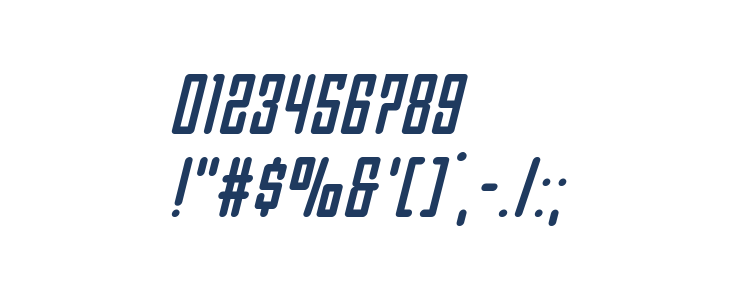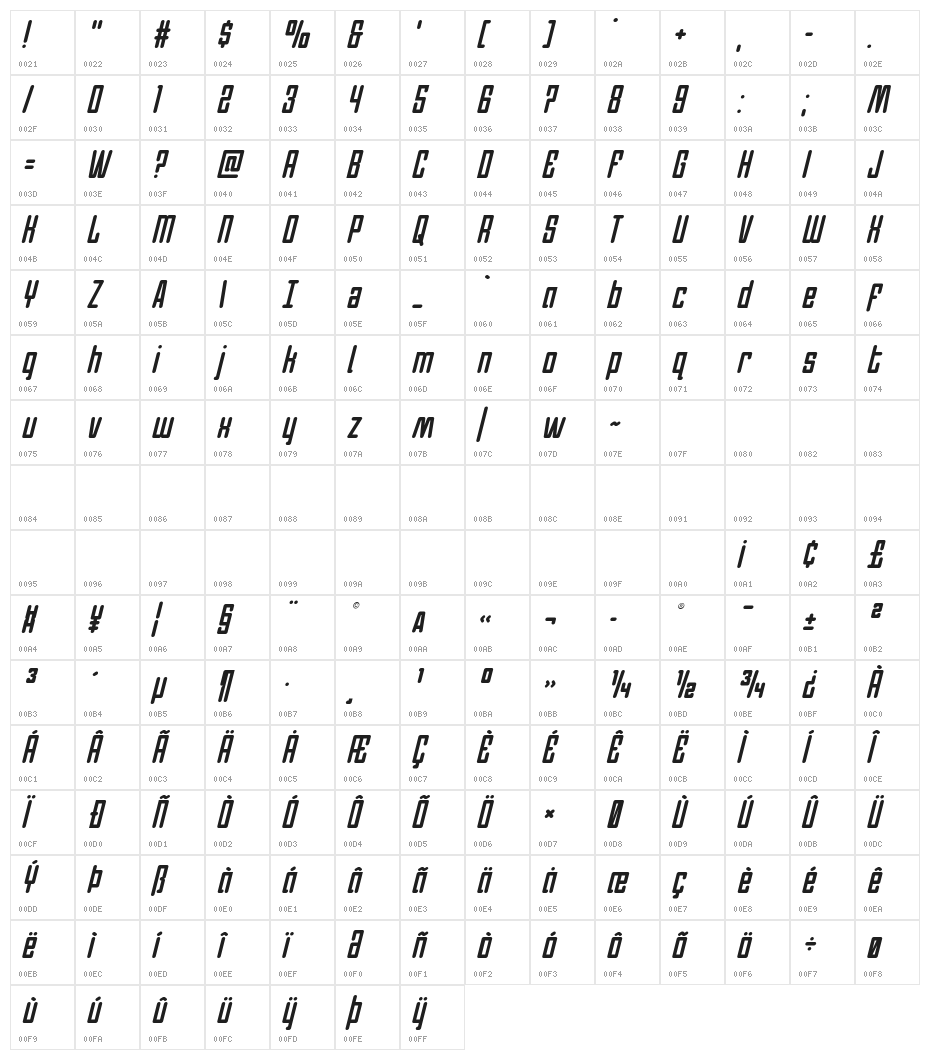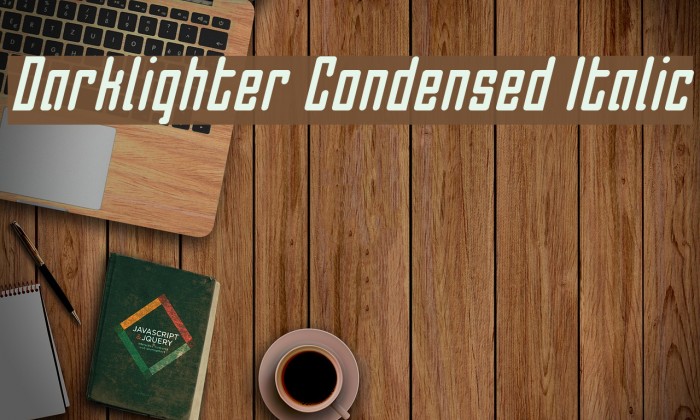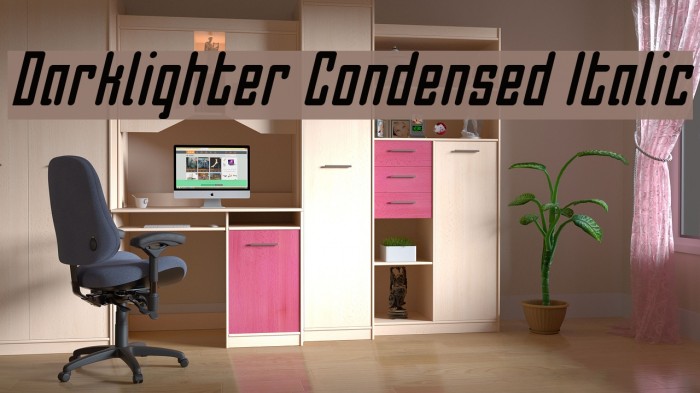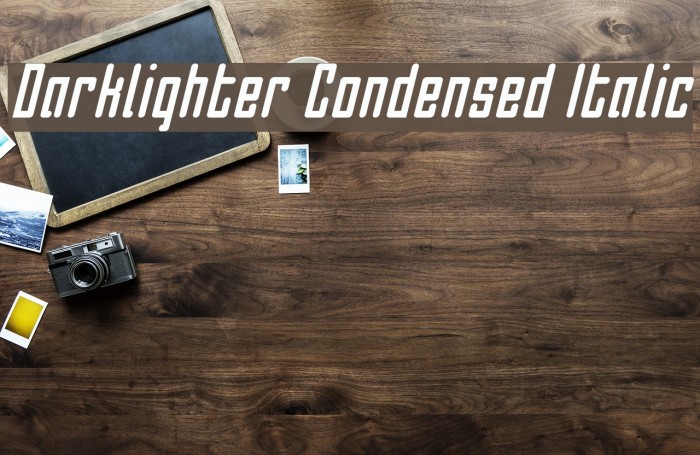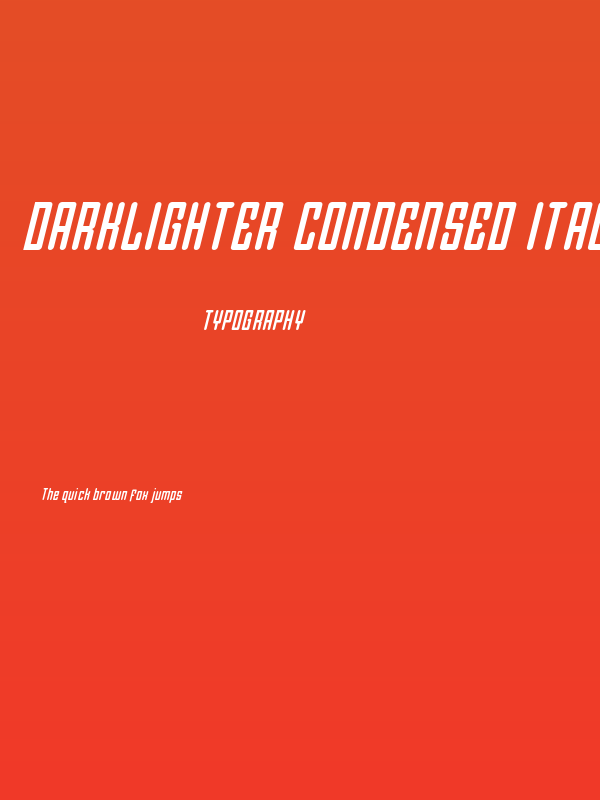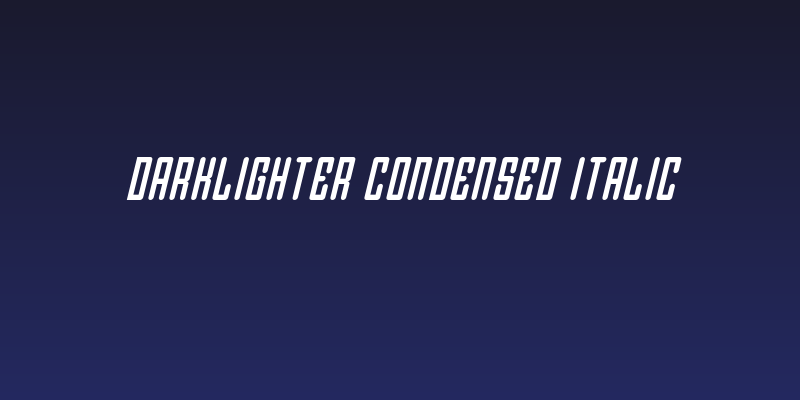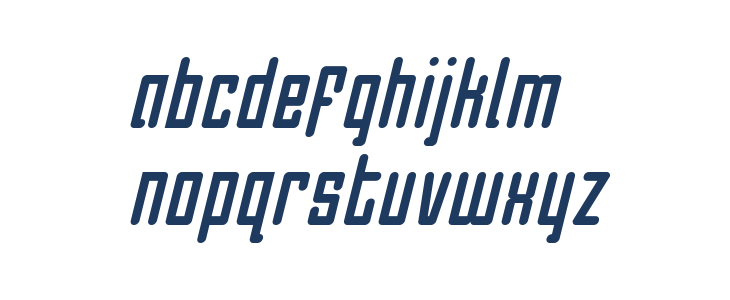
Darklighter Condensed Italic Font
Darklighter Condensed Italic Description
This font features a modern, sleek design with a condensed and italicized style. The characters are elongated and slightly slanted, giving a dynamic and forward-moving appearance. The strokes are consistent in thickness, providing a uniform look across all characters. The uppercase and lowercase letters maintain a cohesive style, while the numerals and special characters complement the overall aesthetic. This font's condensed nature allows for efficient use of space, making it ideal for designs where space is limited but impact is necessary.
| Proposed Projects | Ideal for branding, advertising, and editorial design where a modern and dynamic look is desired. |